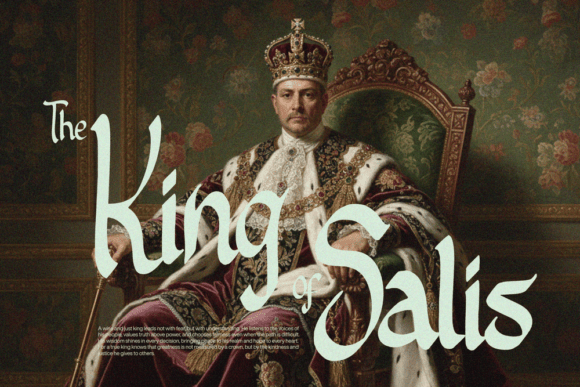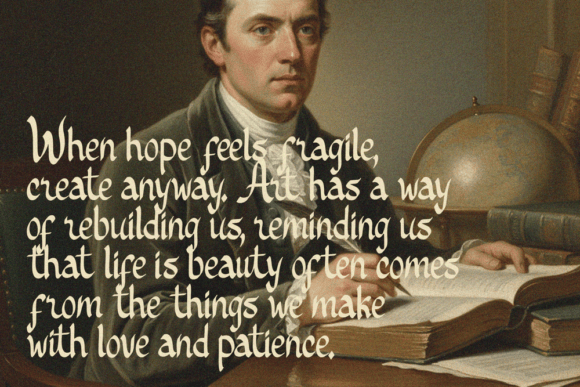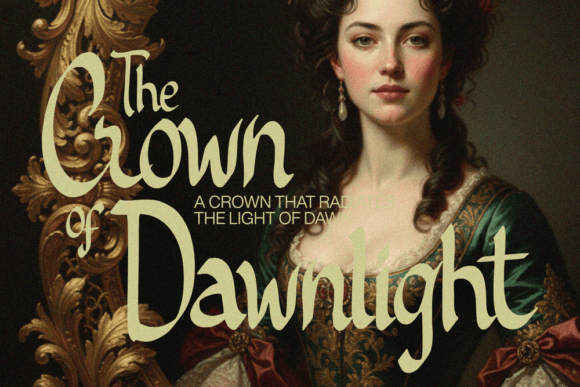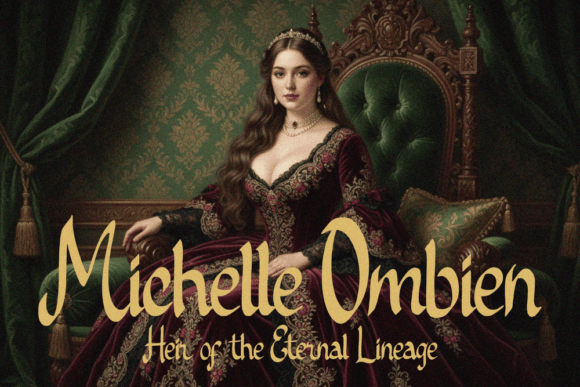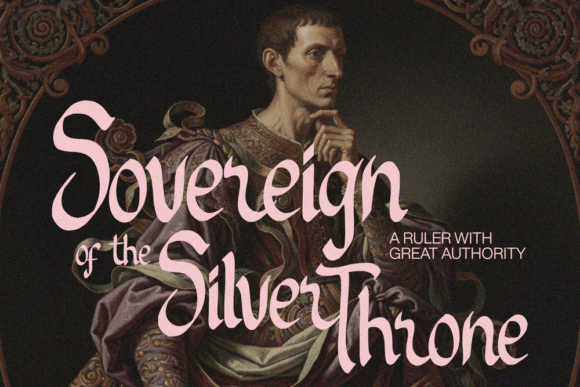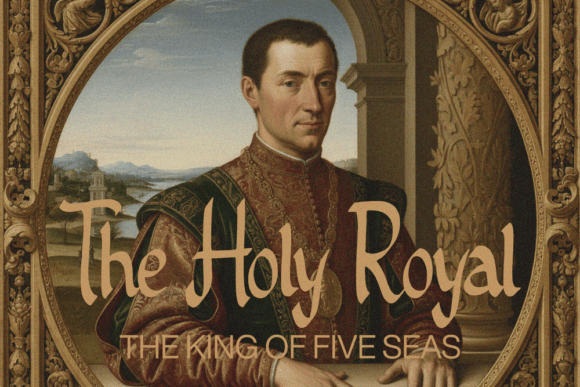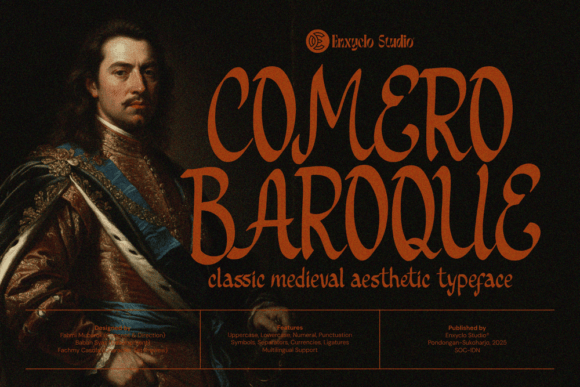
Introducing Comero Baroque: A Timeless Font for Regal Visual Storytelling
Are you a designer, craftsperson, or storyteller looking to add a touch of classic elegance and medieval charm to your visual projects? Look no further than Comero Baroque, a beautiful, handwritten font that embodies the rich aesthetics of the Baroque and Victorian eras. With its ornate strokes, elegant character set, and hand-drawn feel, Comero Baroque is the perfect choice for anyone seeking to infuse their designs with a sense of grandeur and epic narrative.
A Font Fit for Royalty
Comero Baroque is more than just a font – it’s an experience. Inspired by the medieval period and the opulence of the Baroque and Victorian eras, this font brings to life the stories of knights, princesses, queens, and ancient kingdoms. Its intricate strokes and ornamental characters evoke a sense of nostalgia and timelessness, transporting your audience to a world of classic beauty and medieval artistry.
Blending Historical Charm with Modern Usability
One of the standout features of Comero Baroque is its unique blend of historical charm and modern usability. Crafted with a hand-drawn touch, this font combines the best of both worlds, making it an ideal choice for creative agencies, designers, and storytellers looking to add a regal yet artistic flair to their projects. Whether you’re working on posters, headlines, book titles, branding, or fantasy-themed visuals, Comero Baroque elevates every design with a sense of grandeur and epic narrative.
Comero Baroque’s versatility is one of its greatest strengths. This font can be used in a wide range of applications, from:
- Posters and flyers: Add a touch of elegance and sophistication to your promotional materials.
- Headlines and titles: Make your headlines stand out with Comero Baroque’s ornate and attention-grabbing style.
- Book titles and covers: Give your book a regal and timeless feel with Comero Baroque’s classic, medieval-inspired aesthetic.
- Branding and logos: Use Comero Baroque to create a unique and memorable brand identity.
- Fantasy-themed visuals: Transport your audience to a world of magic and wonder with Comero Baroque’s epic, narrative feel.
Why Choose Comero Baroque?
So why choose Comero Baroque over other fonts? Here are just a few reasons:
- Unique and distinctive style: Comero Baroque’s blend of medieval and Baroque influences makes it a standout font that’s sure to grab attention.
- Elegant and sophisticated: Comero Baroque’s ornate strokes and character set add a touch of elegance and sophistication to any design.
- Hand-drawn feel: Comero Baroque’s hand-drawn touch gives it a personal, human feel that’s perfect for designers and craftspersons looking to add a touch of personality to their work.
- Versatile and adaptable: Comero Baroque can be used in a wide range of applications, from posters and headlines to book titles and branding.
Step into a World of Classic Beauty and Medieval Artistry
With Comero Baroque, you can transport your audience to a world of classic beauty and medieval artistry. This font is more than just a design element – it’s a journey through time, a journey into a world of grandeur and epic narrative. Whether you’re a designer, craftsperson, or storyteller, Comero Baroque is the perfect choice for anyone looking to add a touch of regality and artistic flair to their projects.
So why wait? Get ready to elevate your designs with Comero Baroque, the ultimate font for regal visual storytelling. With its timeless feel, elegant strokes, and ornamental character set, Comero Baroque is the perfect choice for anyone looking to add a touch of classic beauty and medieval charm to their projects. Try Comero Baroque today and discover a world of creative possibilities!
| Font Name | Comero Baroque Font |
| Author | Enxyclo |